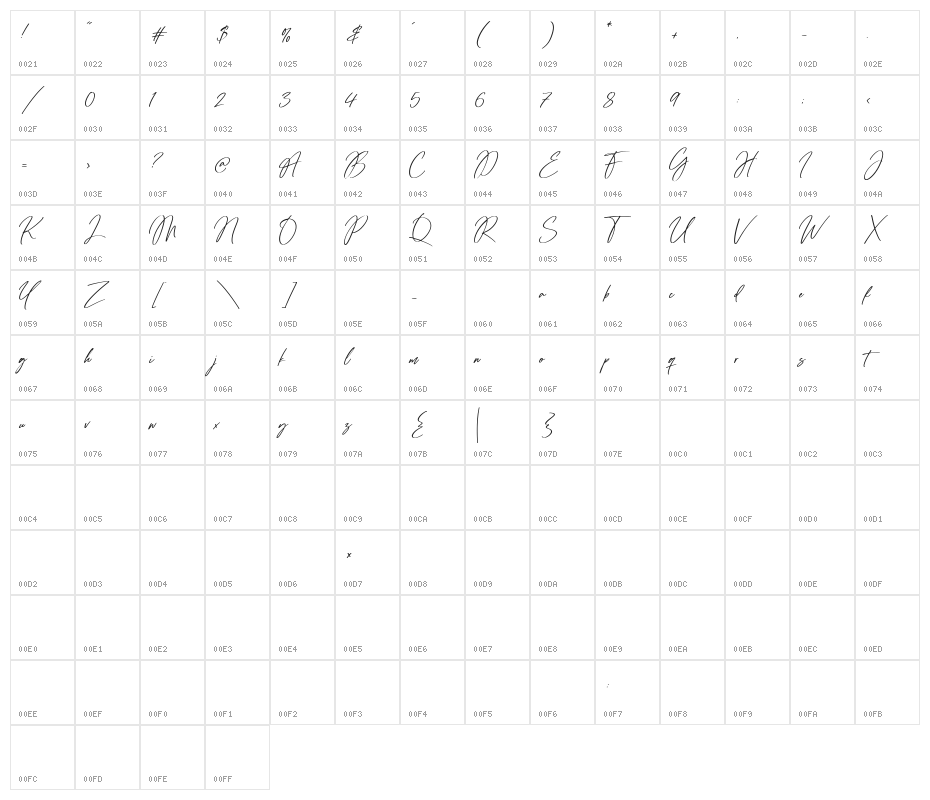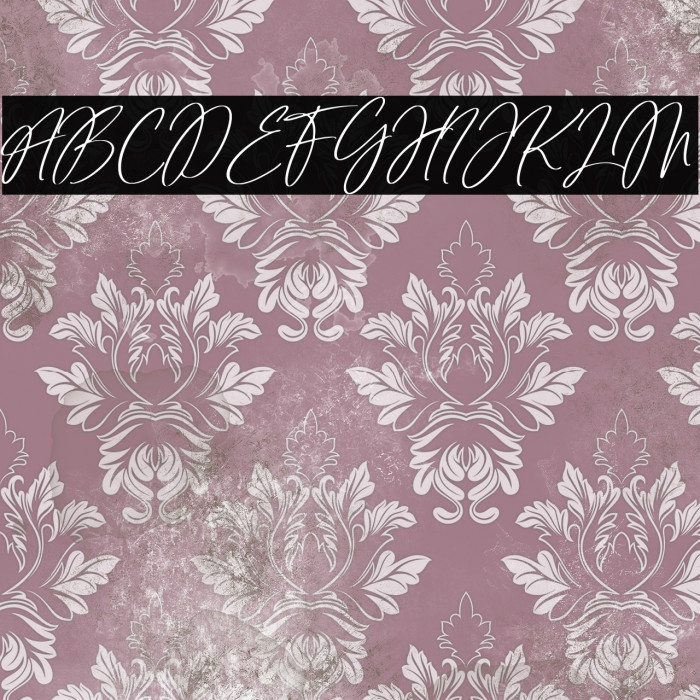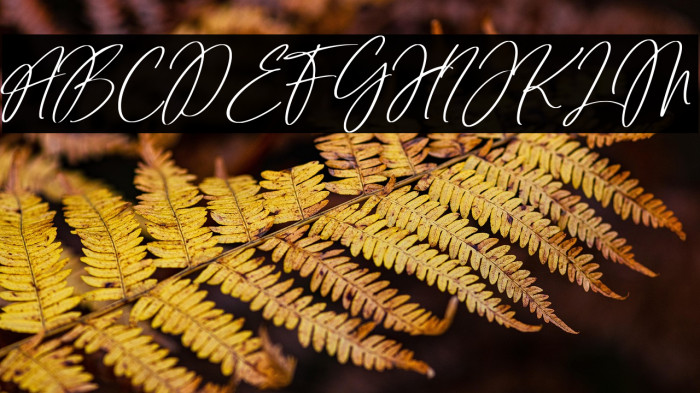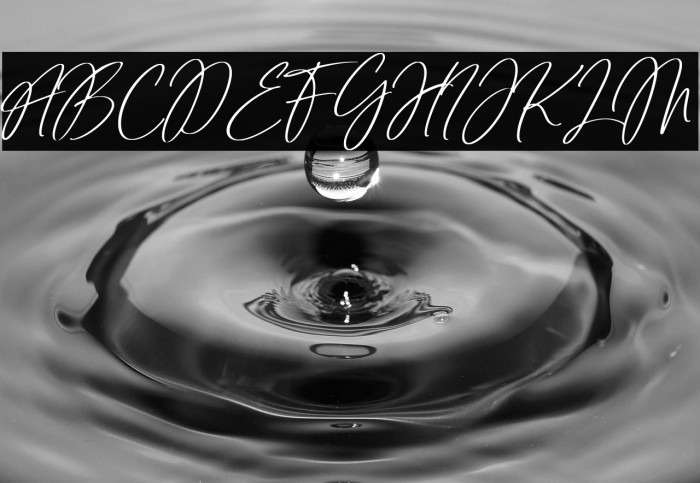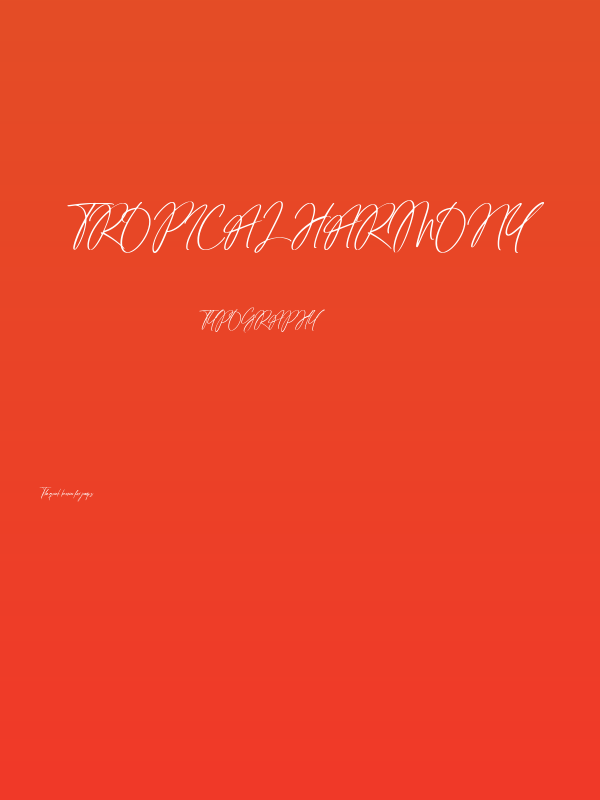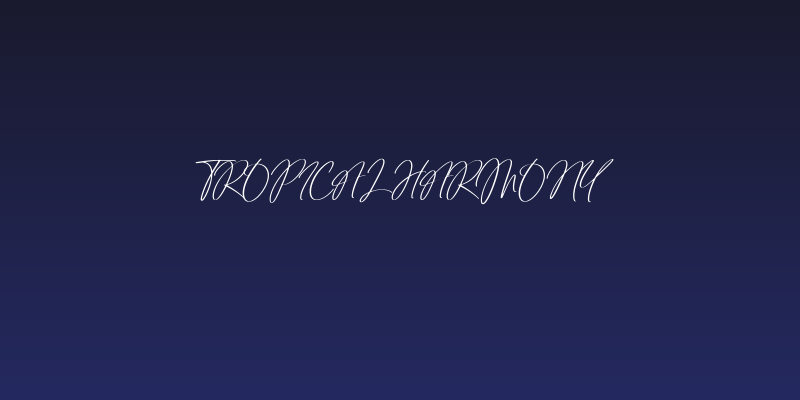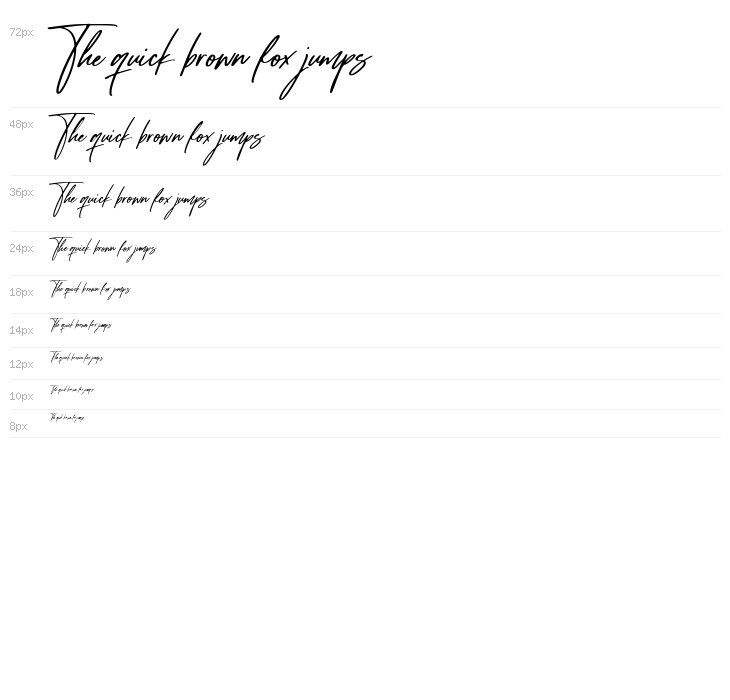
Tropical Harmony Font
Tropical Harmony Description
This font exudes a sense of elegance and fluidity, characterized by its cursive, handwritten style. The letters are interconnected with smooth, flowing strokes that give it a sophisticated and artistic appearance. The uppercase letters are bold and prominent, while the lowercase letters maintain a consistent flow, enhancing readability. The numerals are distinct and maintain the same cursive style, ensuring uniformity across all characters. Special characters are crafted with the same attention to detail, making them blend seamlessly with the rest of the font. This font is perfect for projects that require a personal touch or a creative flair.
| Overall Style | Elegant, Artistic |
| Proposed Projects | Ideal for wedding invitations, greeting cards, branding, and artistic projects. |